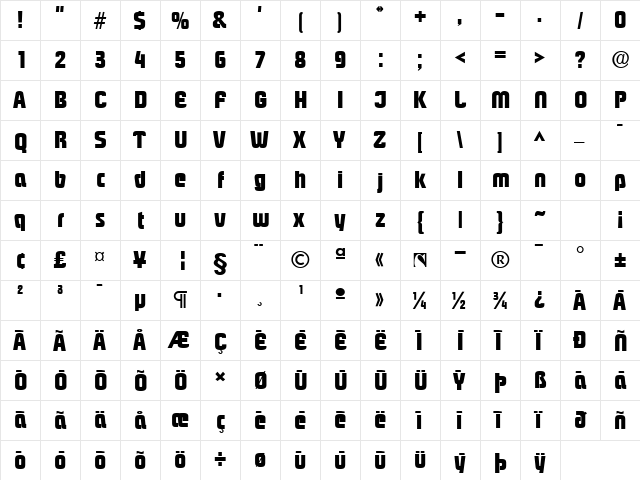
Piazza Black Regular
Design Context for Piazza Black Typeface
Piazza Black is a composed and adaptable typeface that performs quietly and consistently across a wide range of design contexts.
Pro Tip: Pair Piazza Black with a font of contrasting weight or personality to build a more expressive typographic hierarchy.